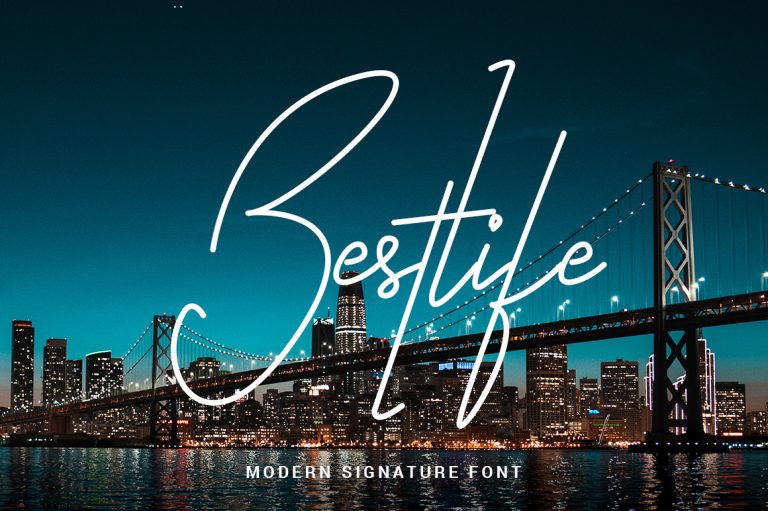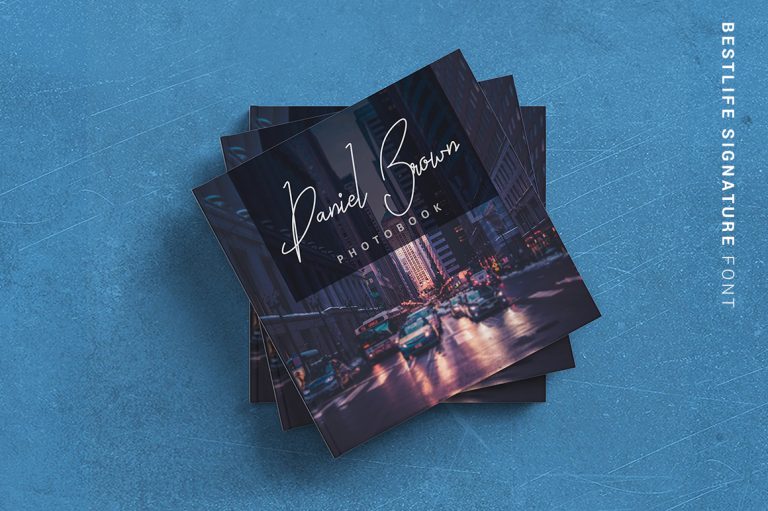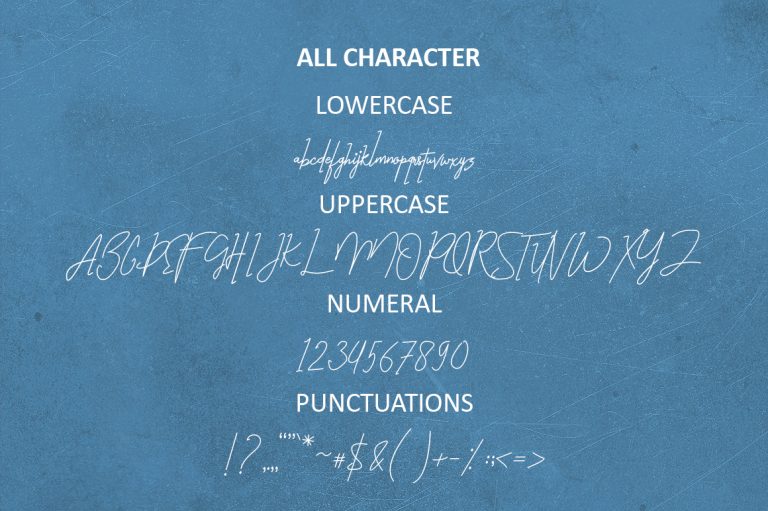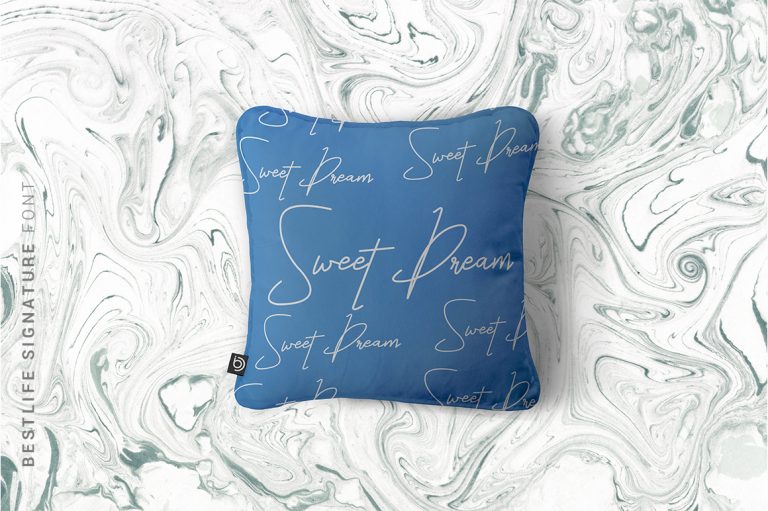
Bestlife Handwritten Font
Bestlife is a handwritten elegant script with a natural & stylish flow. This collection of scripts is perfect for personal branding. It was made with the intention to be used by Photographers as a watermark for their Photography Business – Hence the name, ‘Portrait’. But, this works well for many applications. Everything from personal branding & wedding invitations to advertising could benefit from this collection of signature fonts.